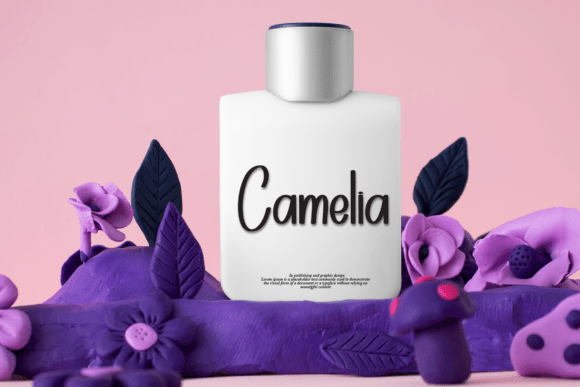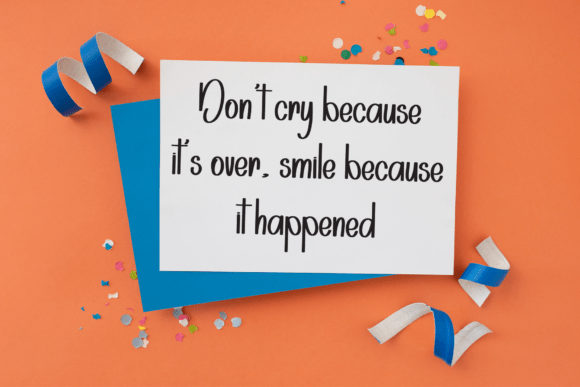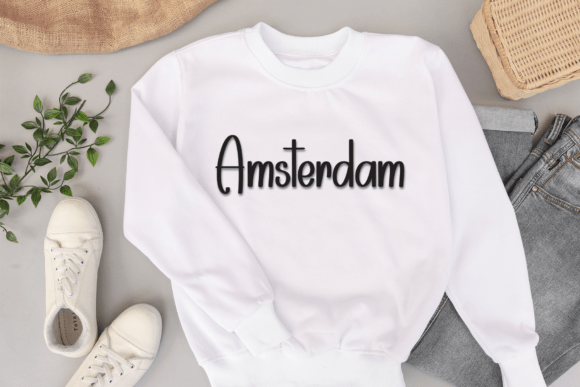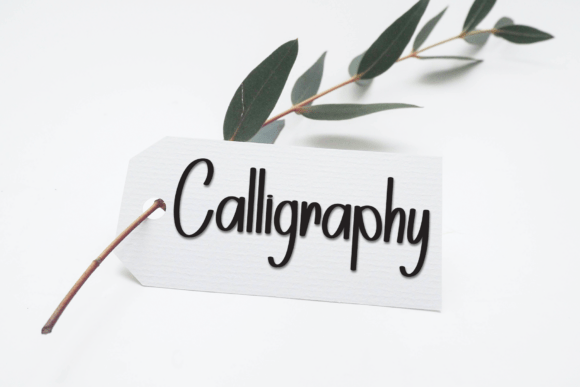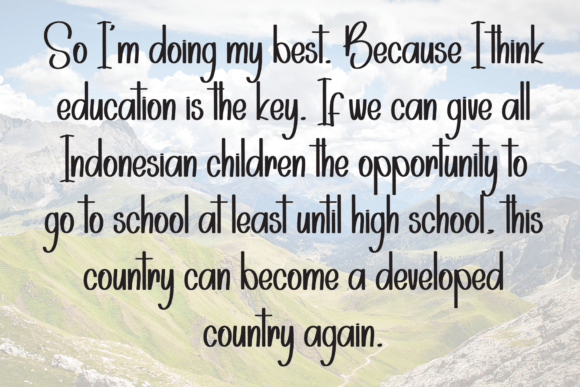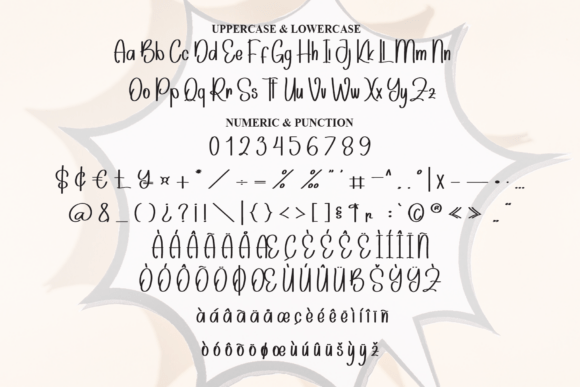
Love at First Sight: Discover the Magic of Booming Font
As a designer, there’s nothing quite like the thrill of stumbling upon a font that sparks inspiration and sets your creative juices flowing. For me, it was the day I laid eyes on the Booming Font – a stylish handwritten script font that stole my heart with its charming curves and whimsical details.
The Booming Font is a perfect blend of modern and vintage flair, making it an ideal choice for feminine branding, logos, product packaging, and romantic quotes. Its smooth characters and flowing lines evoke a sense of elegance and sophistication, while the heart detail adds a touch of playfulness and personality.
For designers, the Booming Font is a valuable addition to any creative toolkit, offering a fresh and unique aesthetic that can elevate any project from ordinary to extraordinary.
Key Features of Booming Font
- Unique Characteristics: Booming Font features a dynamic and energetic design, with bold lines and vibrant colors, making it perfect for creating attention-grabbing headlines and titles.
- Font Style: Booming Font is available in a single style, but it offers a range of weights, from Light to Black, allowing users to customize the font’s appearance to suit their design needs.
- Font Pairing: Booming Font pairs well with a range of other fonts, including sans-serif and serif fonts, making it easy to create harmonious and visually appealing designs.
Booming Font Review
As a designer, I’m always on the lookout for fonts that make a statement. Booming Font is definitely one that catches the eye, with its bold, energetic vibe ✨.
The font’s unique combination of rounded edges and angular lines creates a visually striking effect, making it perfect for headlines, titles, and other prominent text. It’s also highly customizable, allowing for a range of adjustments to suit your specific design needs.
Here are some of the features that stood out to me:
- Highly customizable, with options for adjusting font weight, size, and spacing
- Unique, attention-grabbing design that’s perfect for headlines and titles
- Supports a wide range of languages, making it a great option for global design projects
- The font can be quite loud, so it may not be suitable for more subtle designs
- It may not be the best choice for body text, as it can be a bit overwhelming in larger quantities
- Some users may find the font’s design a bit too gimmicky
Overall, Booming Font is a solid choice for designers looking to add some excitement to their projects. While it may not be the perfect font for every situation, it’s definitely worth considering for those looking to make a bold statement ✨.